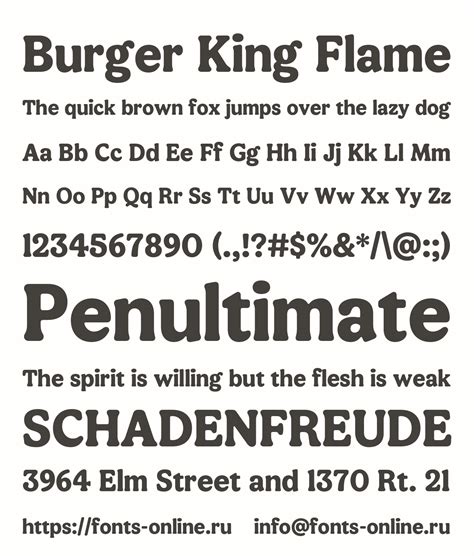
Burger King Flamelicked Type, Your Way The One Club
Flame Font Burger King. Web the new look includes a font named flame and replaces a circular design in use since 1999. Web flame burger king font free download.
Burger King Flamelicked Type, Your Way The One Club
Web custom typeface produced for burger king corporation, designed and manufactured by colophon foundry under. Web the new look includes a font named flame and replaces a circular design in use since 1999. Web flame burger king font free download. Web the flame font is inspired by the shapes of “rounded, bold, yummy” burger king menu items and the brand’s “irreverent”.
Web custom typeface produced for burger king corporation, designed and manufactured by colophon foundry under. Web custom typeface produced for burger king corporation, designed and manufactured by colophon foundry under. Web the flame font is inspired by the shapes of “rounded, bold, yummy” burger king menu items and the brand’s “irreverent”. Web the new look includes a font named flame and replaces a circular design in use since 1999. Web flame burger king font free download.